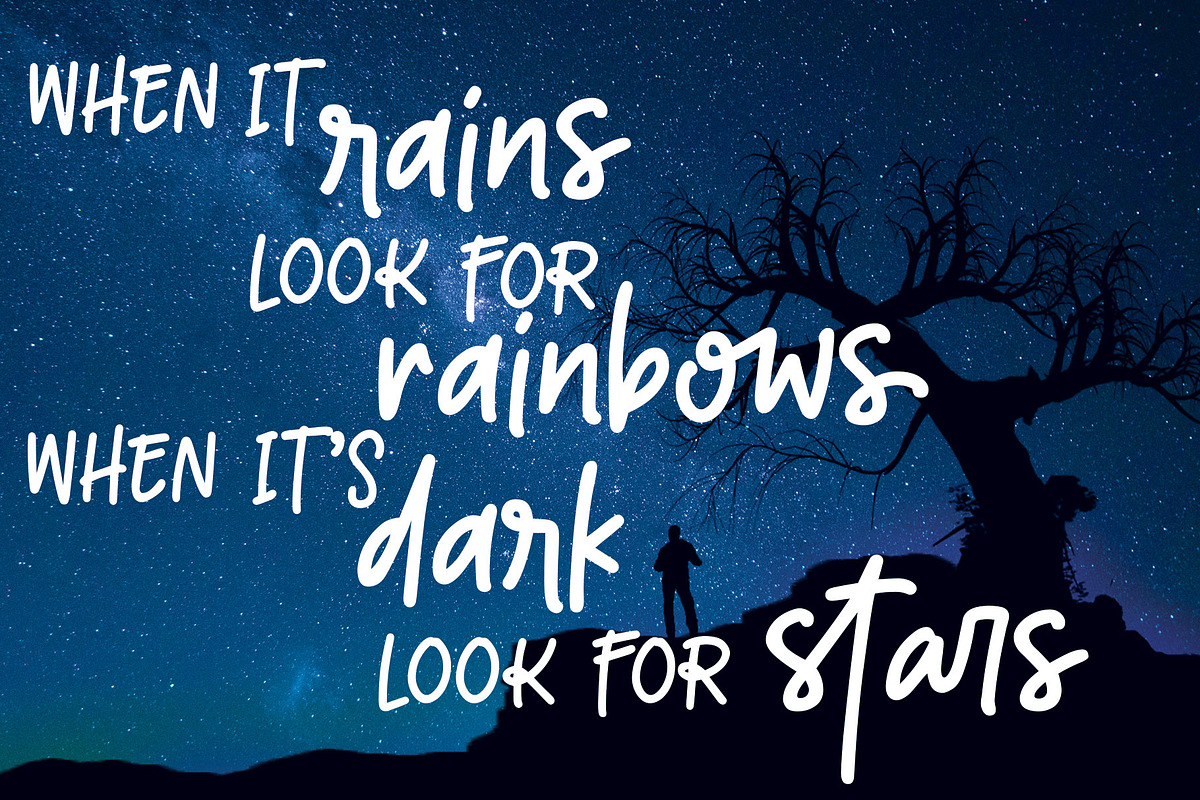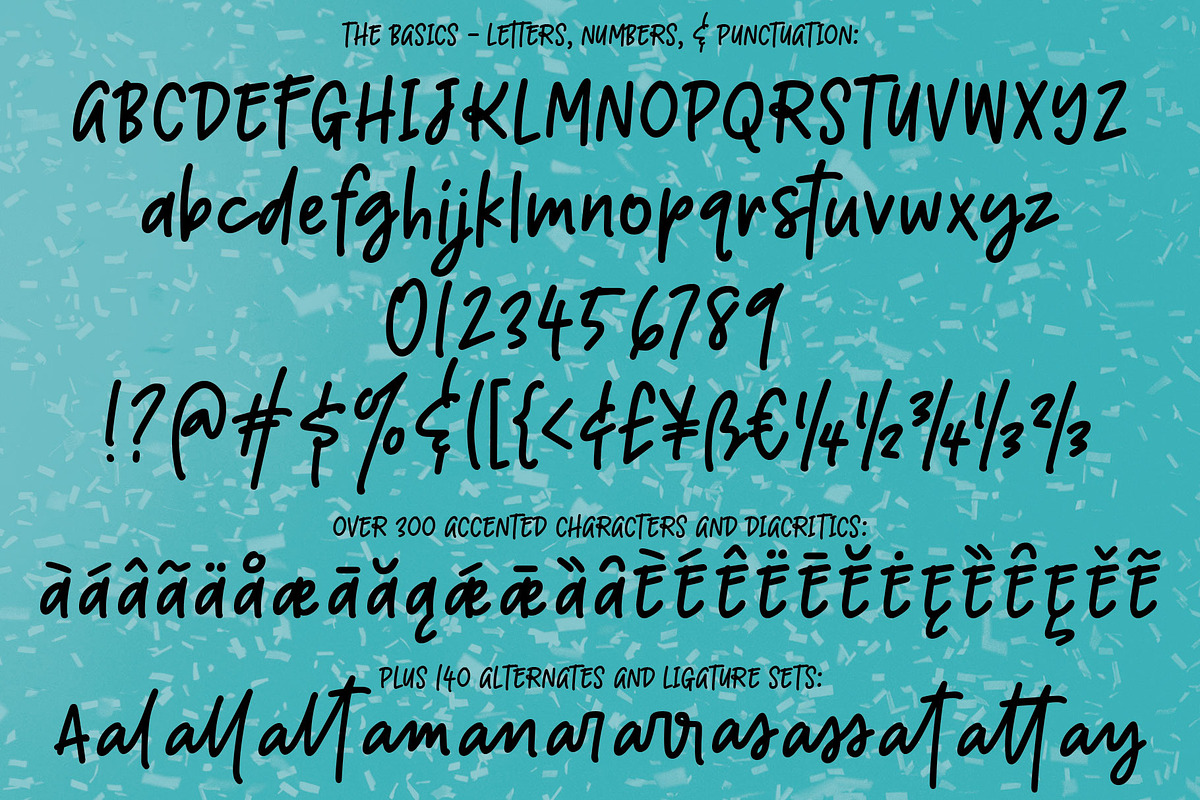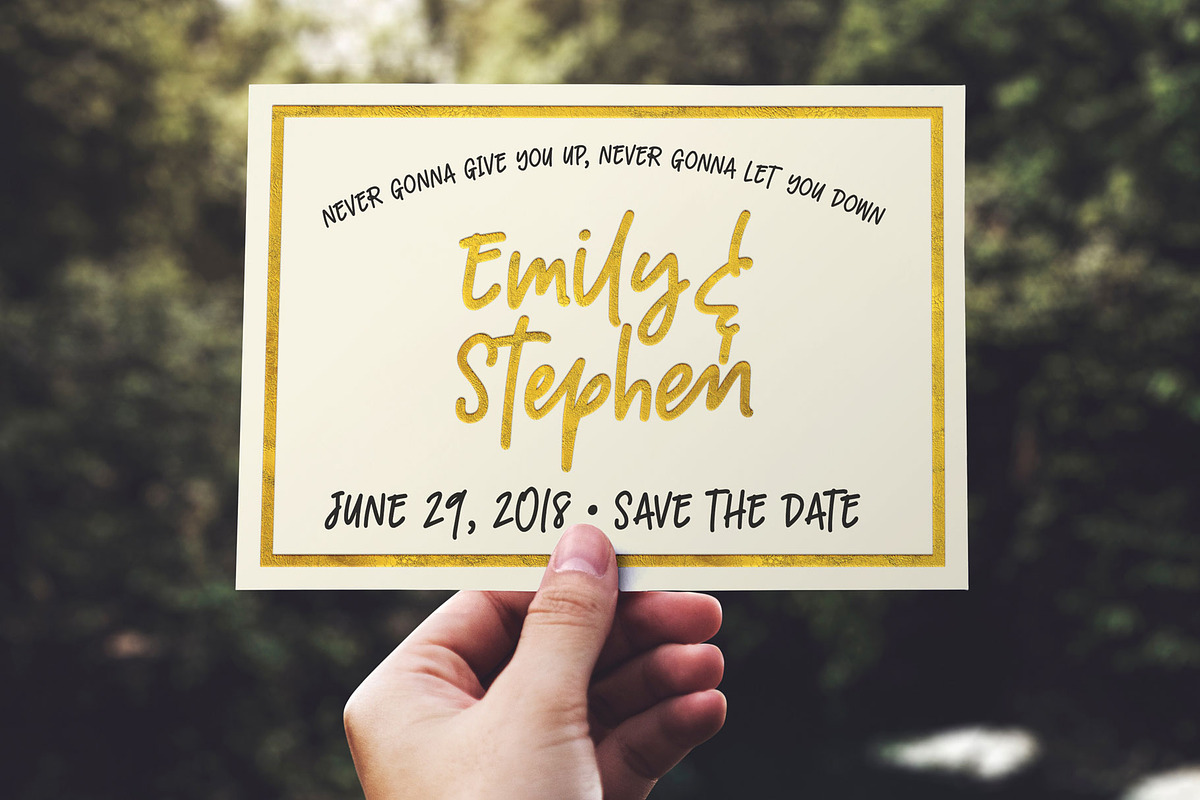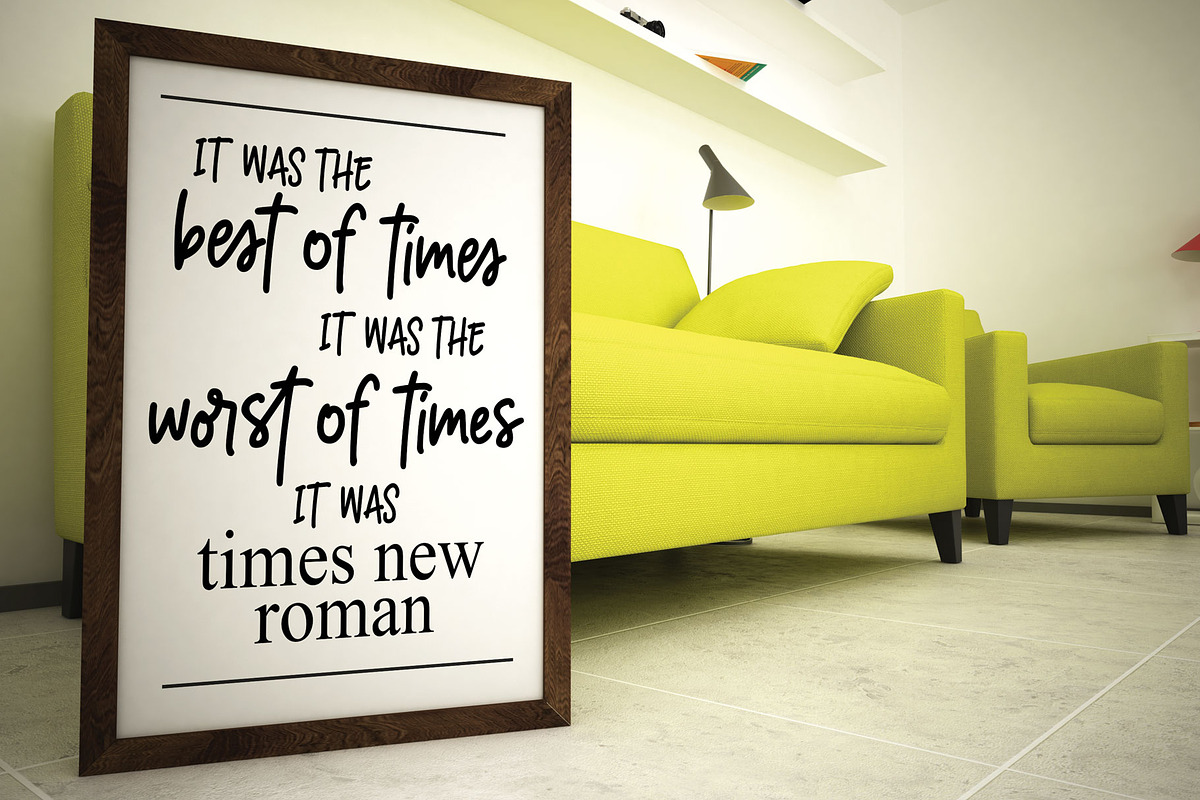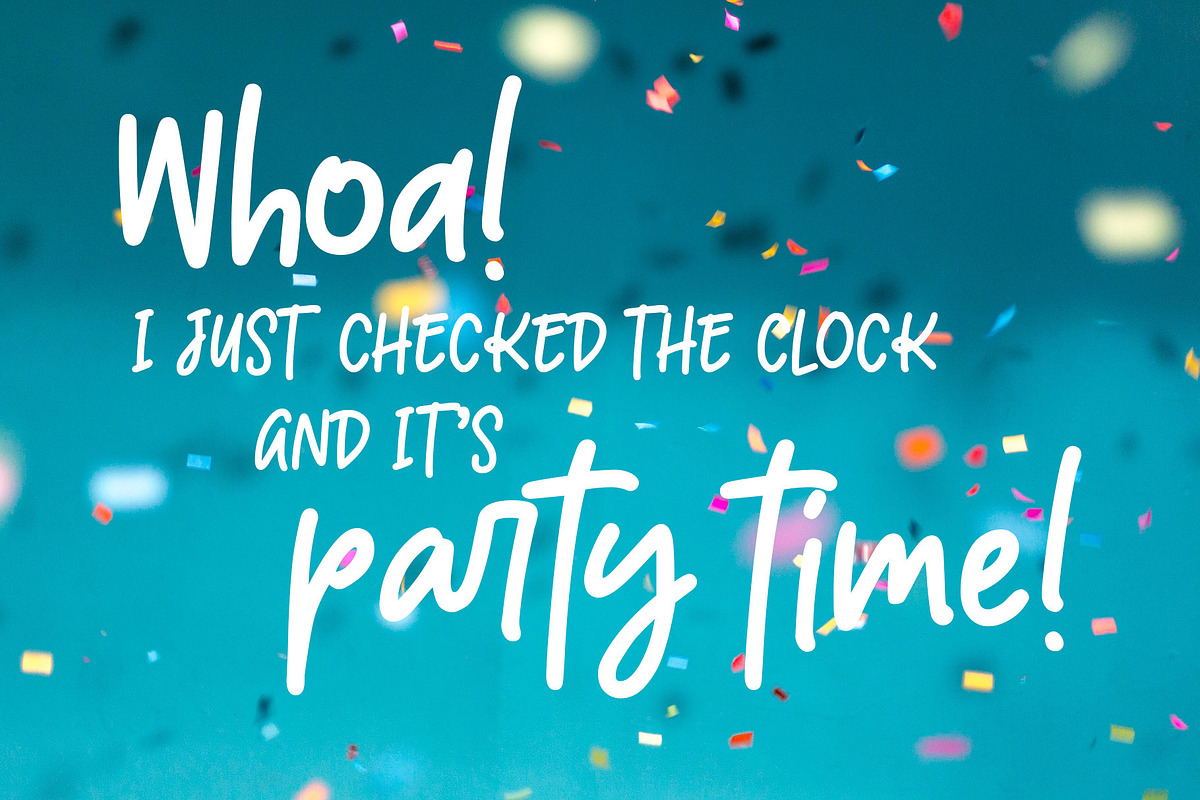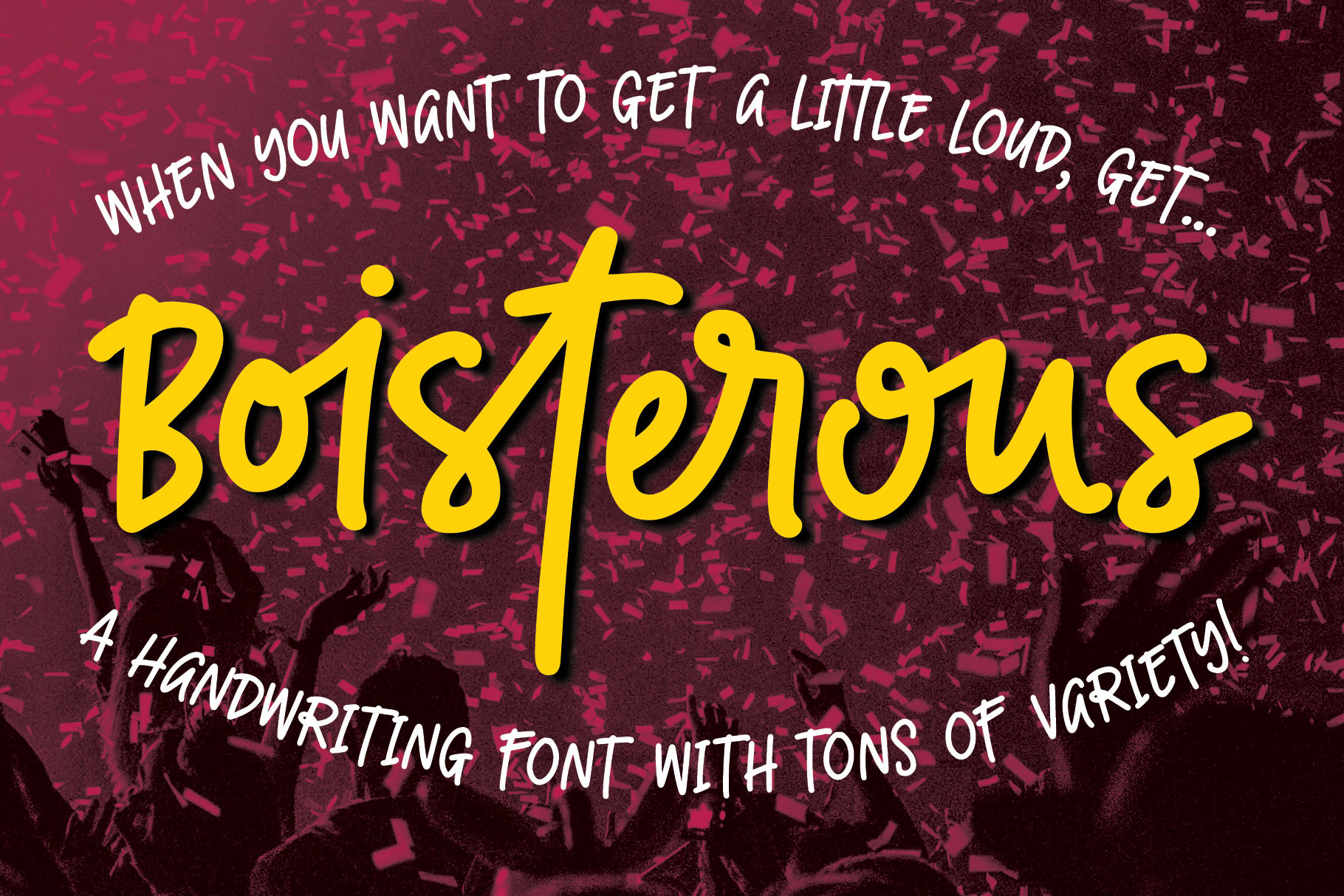
Boisterous! A casual writing font
Have you ever been drawing out the letters for a font, then you start making some multi-letter ligatures? Then you think up some more to make, and you make those too? And you keep making them, until you have over a hundred of them?
No? Just me?
Boisterous is a font that started out simple -- a nice handwriting style with a single stroke width. But add in the ligatures, plus a dozen single-letter alternates and my usual crowd of accented characters for language support, and this baby has grown to over 600 characters total. It's a great casual font for branding or packaging, but it's also smoothed so it's easy for cutting.
Boisterous includes:
- The usual A-Z, a-z, 0-9, and lots of punctuation
- Over 300 extended Latin characters for language support
- 140 alternates and ligatures in the PUA for variety